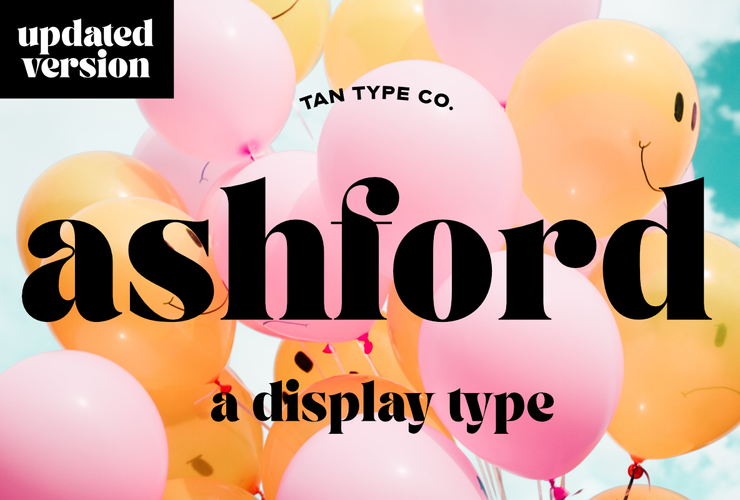
TAN Ashford specimen and verified specs
- Styles: 1 (Bold)
- Glyphs: 347
- Language support: Basic Latin (English), Western European, Central & Eastern European
- OpenType features: standard ligatures, kerning, fractions
- Designer: Novia Jonatan (TanType Co.)
Design and character
The designer describes TAN Ashford as “a bold serif with high contrast” with “a touch of vintage vibes”, aimed at headlines, invitations and advertising. The specimens bear that out. The heavy strokes are very thick and the thin strokes drop to hairlines: the crossbars of A and H are single fine lines, and the brackets, plus, minus and slash are drawn almost as thin rules.
The lowercase is where most of the personality sits. The a, c, f, j, r and y end in round ball terminals, the g has a double-storey shape with a hairline loop for its lower bowl, and the f carries a long, thin crossbar. The Q finishes in a curled tail. The figures follow the same logic, with ball terminals on 2, 3, 5, 6 and 9, and the @ sits inside a thin ring. Spacing is fairly tight, which suits big display sizes and makes the font look dense and confident in a single line.
It is a display face. At small sizes the hairlines will thin out and the ball terminals will crowd each other, so keep it for headings and short phrases.
Language support and OpenType features
The character set covers Basic Latin (English), Western European languages such as French, German and Spanish, and Central and Eastern European languages such as Polish, Czech and Hungarian.
TAN Ashford has three OpenType features:
- Standard ligatures: pairs of letters that would collide are swapped for a single combined shape automatically. Most design apps, including Adobe Illustrator, InDesign, Affinity and Figma, turn this on by default.
- Kerning: built-in spacing adjustments for awkward pairs such as “Te” or “AV”. Almost every app applies it automatically.
The font has no glyphs in the Private Use Area (PUA). That doesn’t matter much here, because TAN Ashford has no stylistic alternates or swashes to unlock. Everything you see in the character set is typed directly from the keyboard, so it behaves the same in Canva or Cricut Design Space as it does in Illustrator.
Best uses and font pairings
TAN Ashford works best for magazine-style headlines, book and album covers, posters, wedding and event invitations, and wordmarks where a retro editorial look is wanted. Because there is only one heavy weight, pair it with a quieter typeface for everything else:
Who designed TAN Ashford?
Does it have a lowercase and numbers?
Yes. It has full upper and lowercase, figures, punctuation and accented letters for European languages.